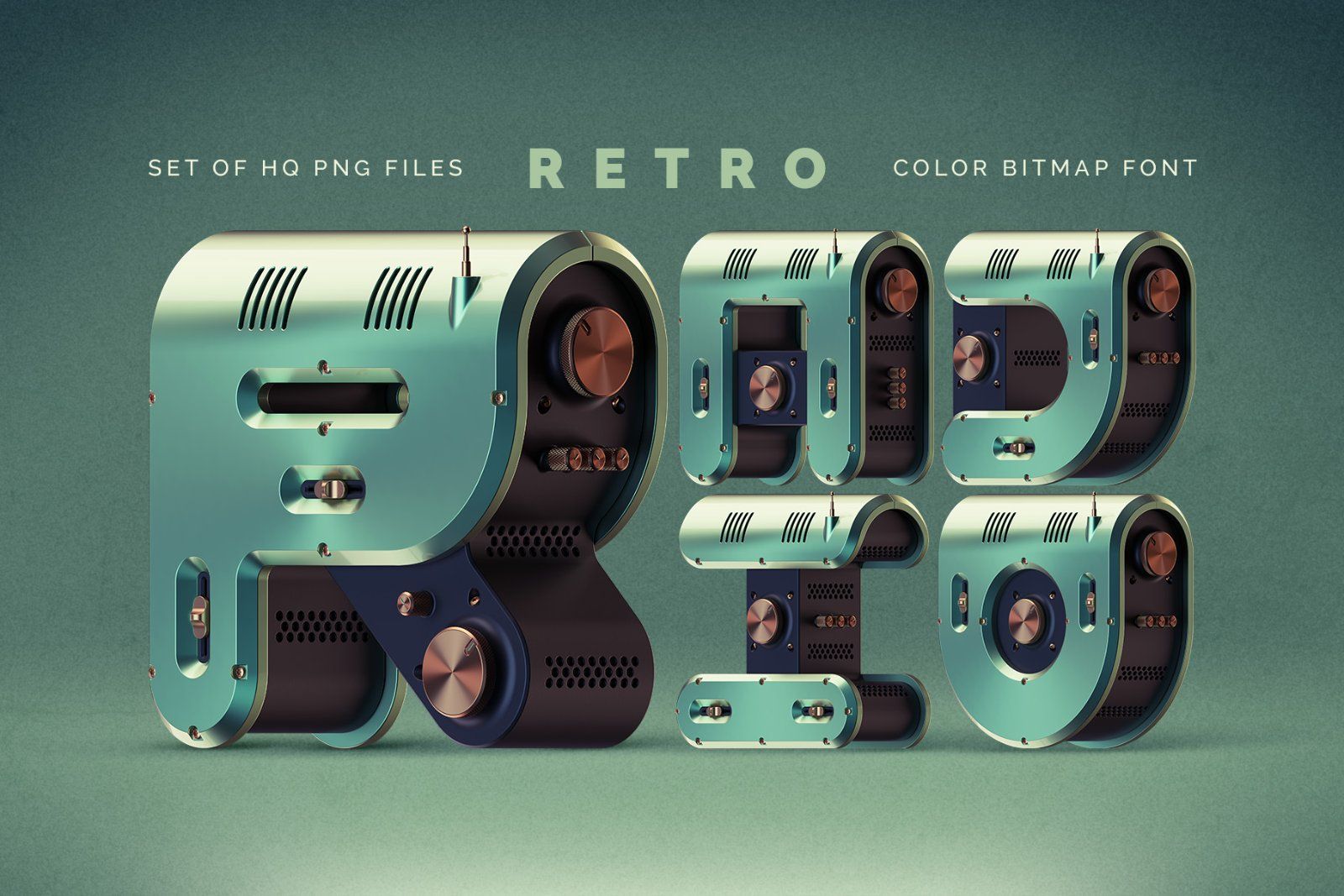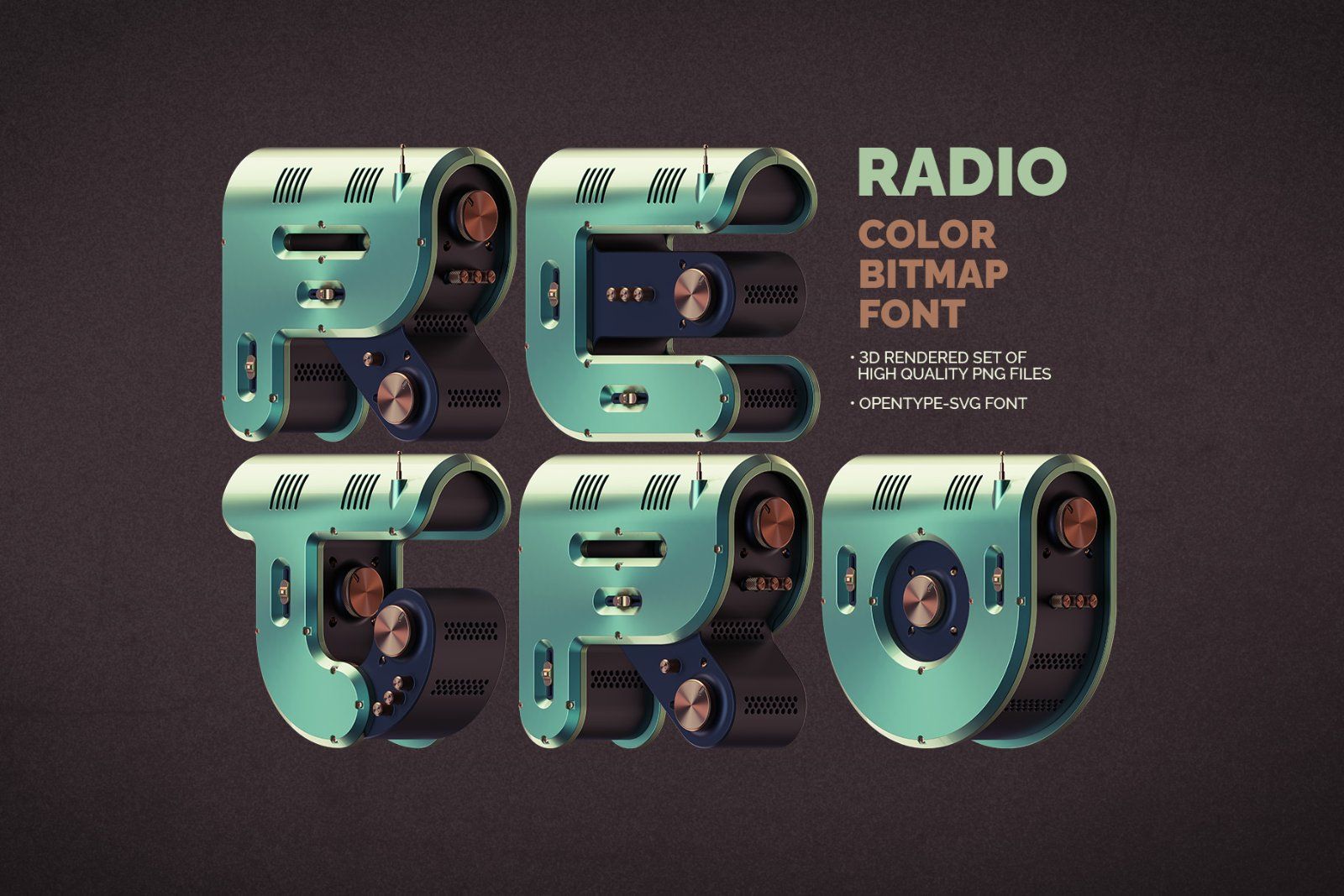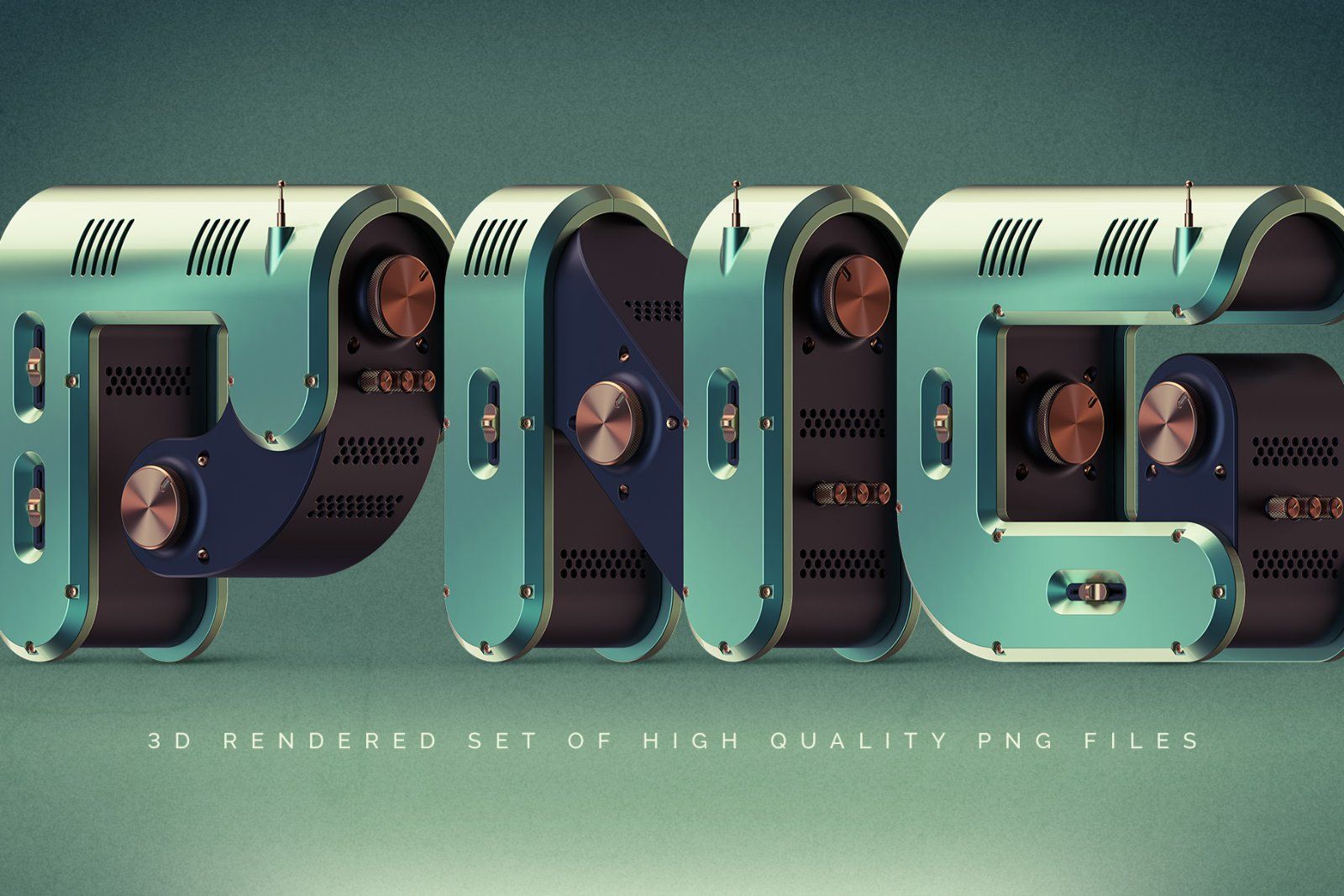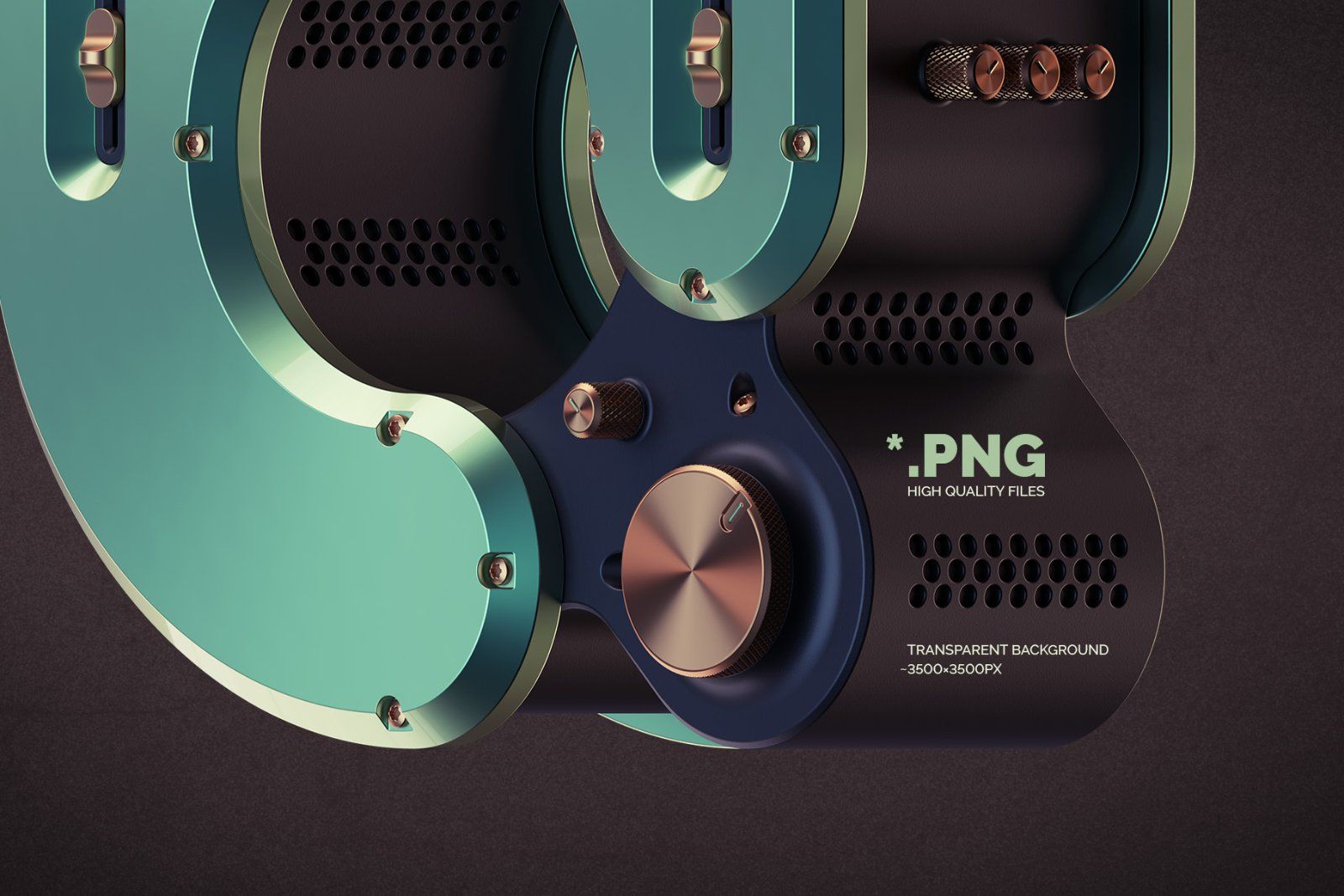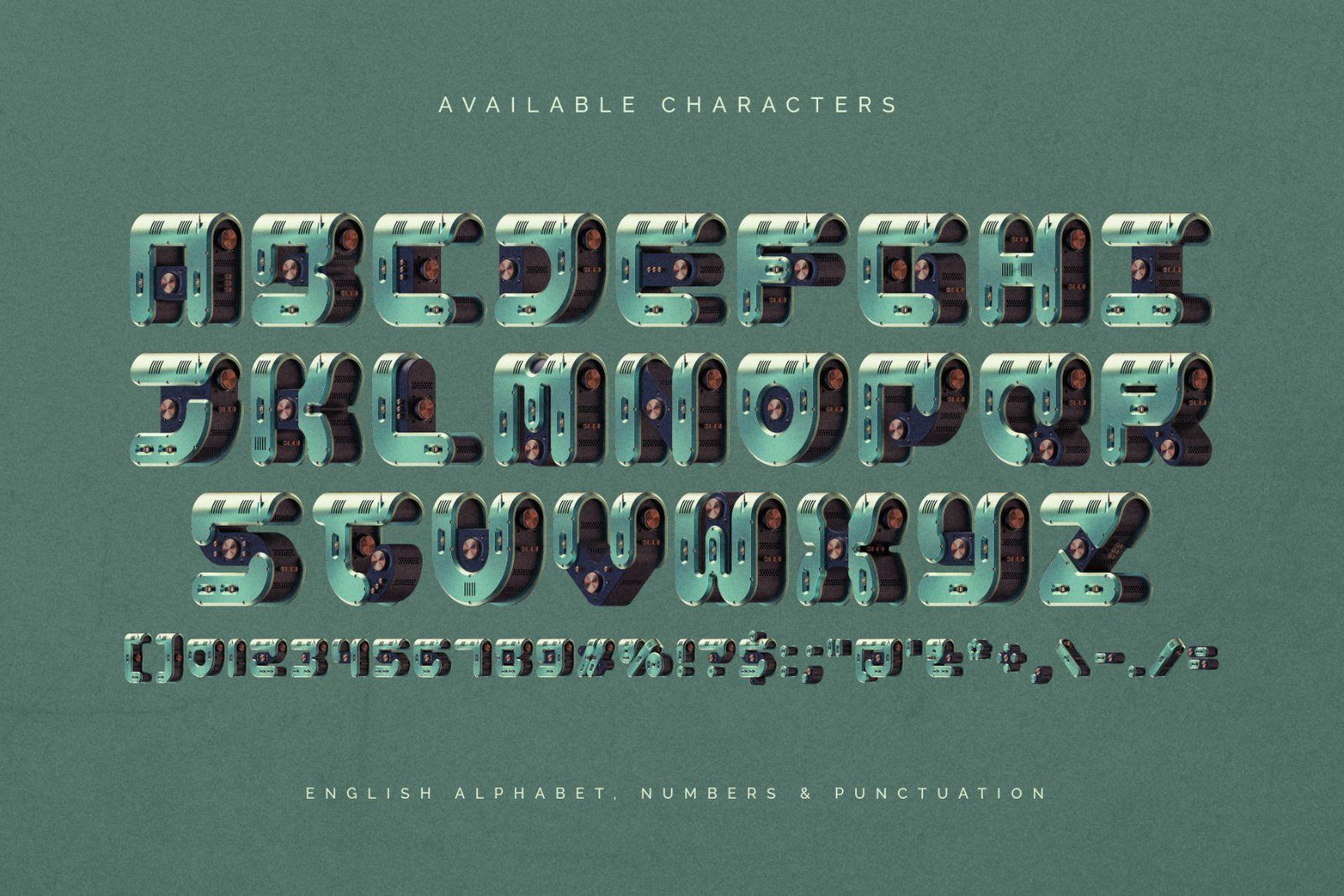
Hi, Introducing a Retro Radio color bitmap font. This 3D rendered type is inspired by vintage devices, like radios and amplifiers, with letters featuring metallic bolts, knobs, and faders. Perfect for retro tech designs, posters, and creative digital projects.
Retro Radio is a color bitmap OpenType-SVG font, usable just like any standard OTF font. Additionally, the set includes high-resolution PNG files with transparent background (average resolution is 12 megapixels). Consider that the font supports only the English language and basic punctuation. Be sure to review the included screenshot for a complete list of available characters.